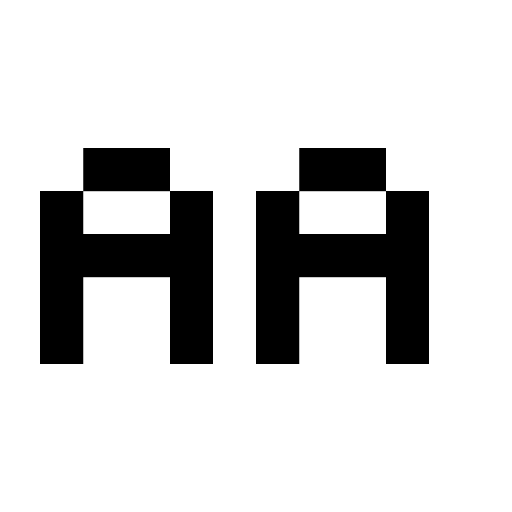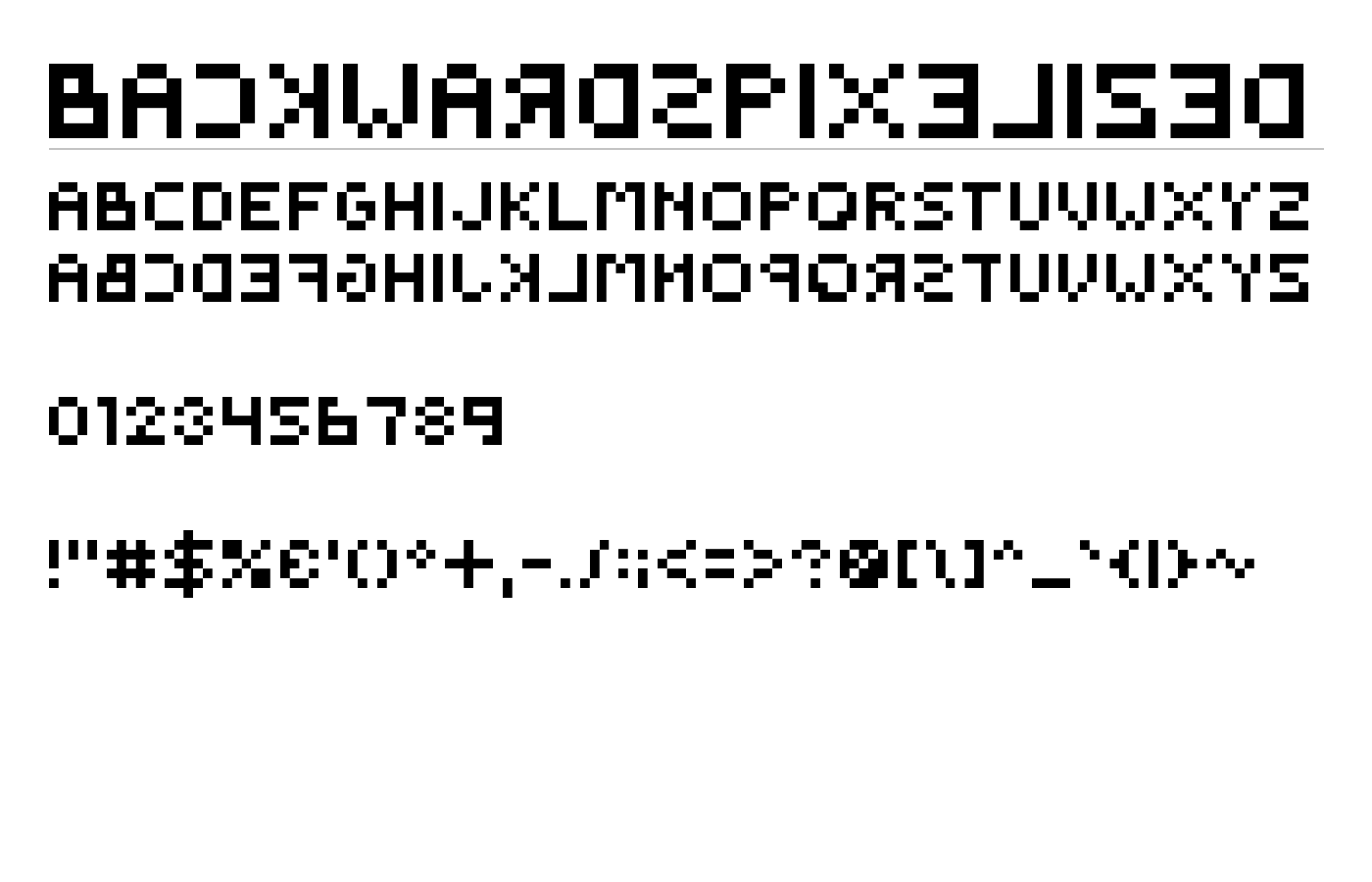
BackwardsPixelized is a bold, pixel-inspired sans serif font characterized by its blocky, sharp-edged letterforms that resemble retro digital displays. Its monospaced, geometric style with a unique backward motif gives it a playful and techy vibe, making it ideal for video game graphics, digital art, or futuristic branding. This font works best in headlines, logos, and creative projects where a nostalgic yet modern pixelated effect is desired.
BackwardsPixelized Font
About BackwardsPixelized Font
| Font family | BackwardsPixelized Font |
| Designer | ThisSideBackwards |